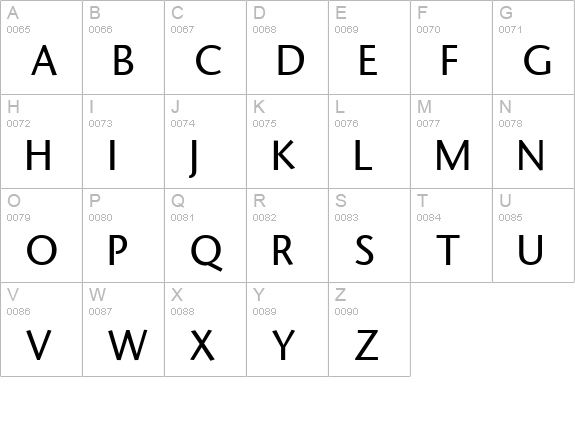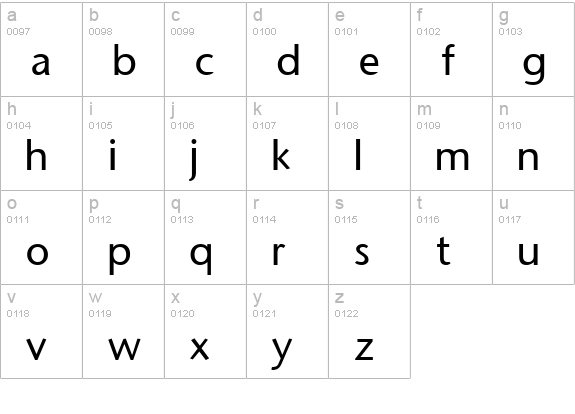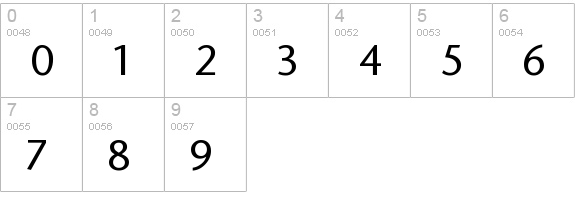
Stone Regular Font Details
Stone Regular is the standard, neutral variant in the Stone typeface family \xE2\x80\x94 well suited to general body text, paragraphs, and standard typographic work.